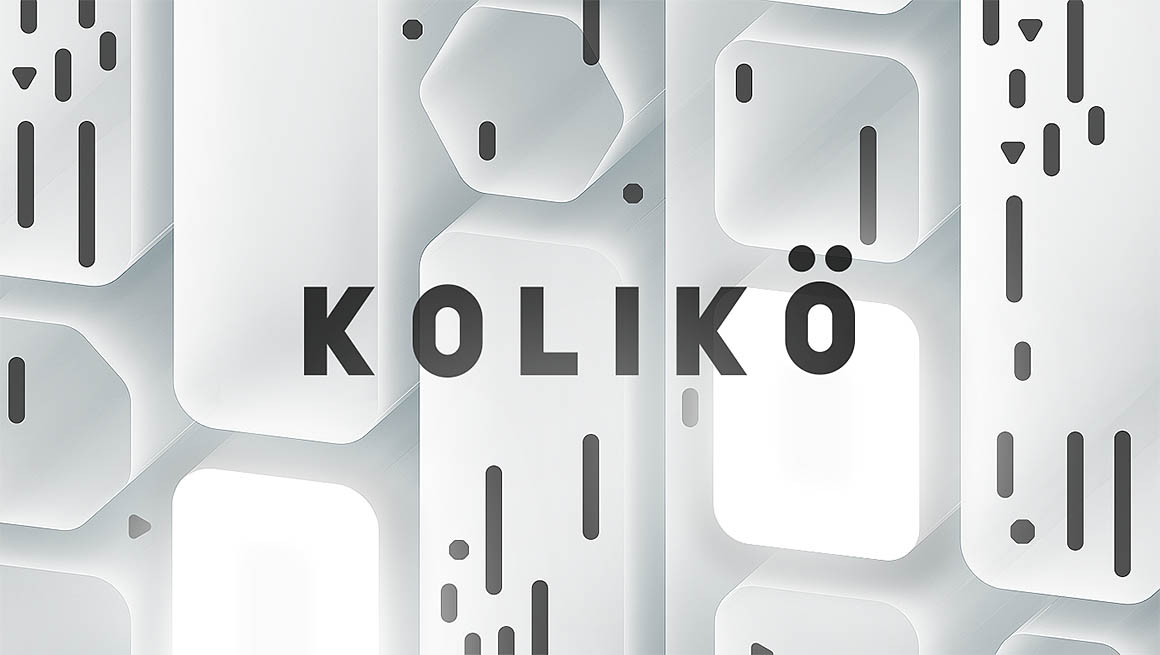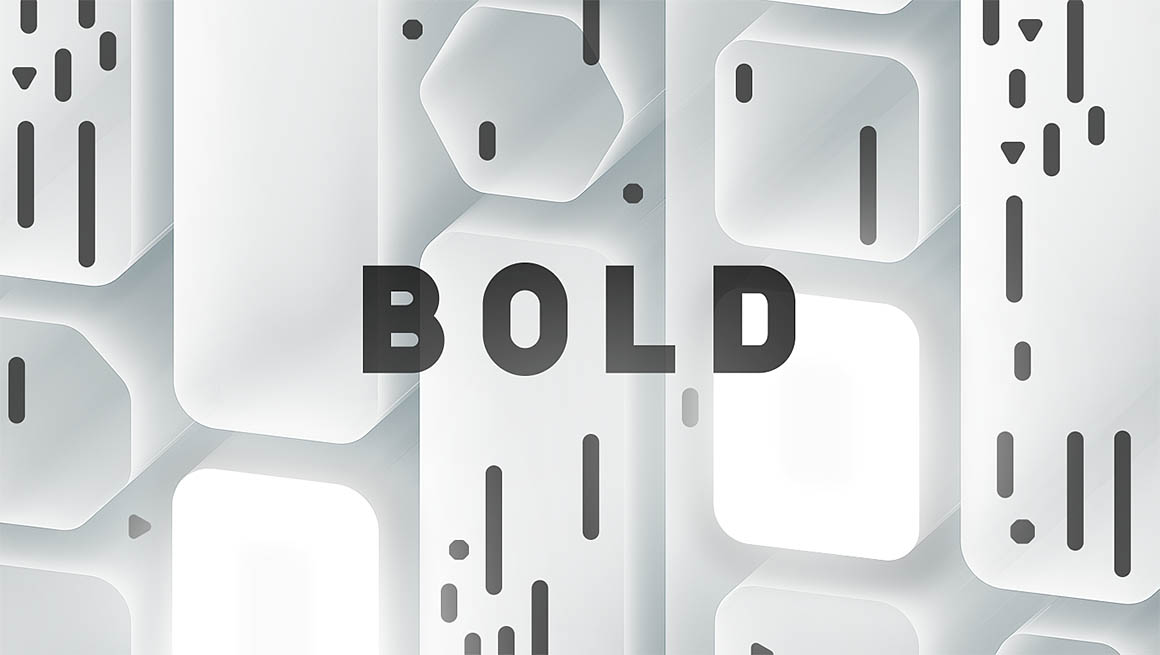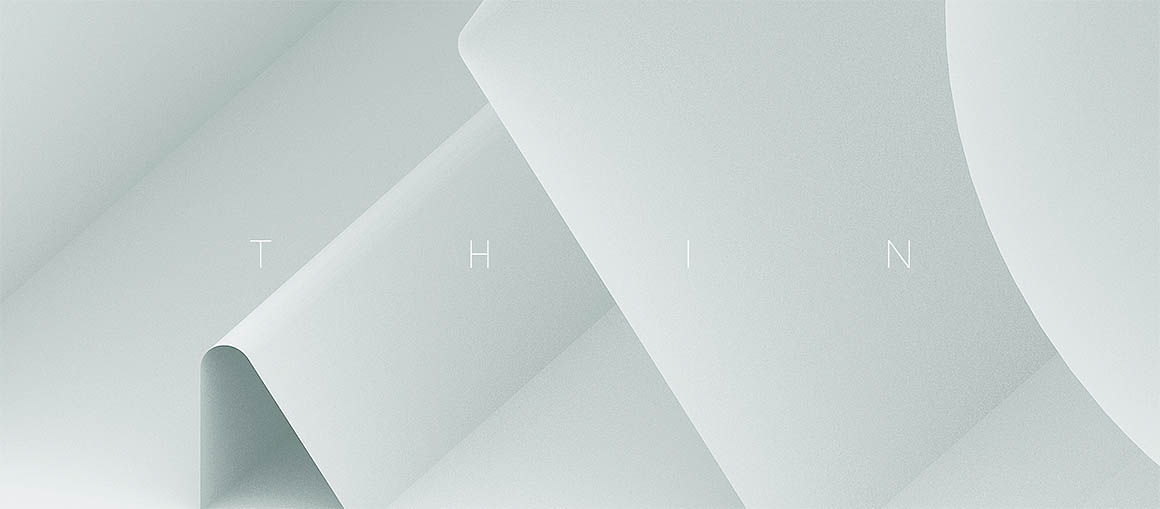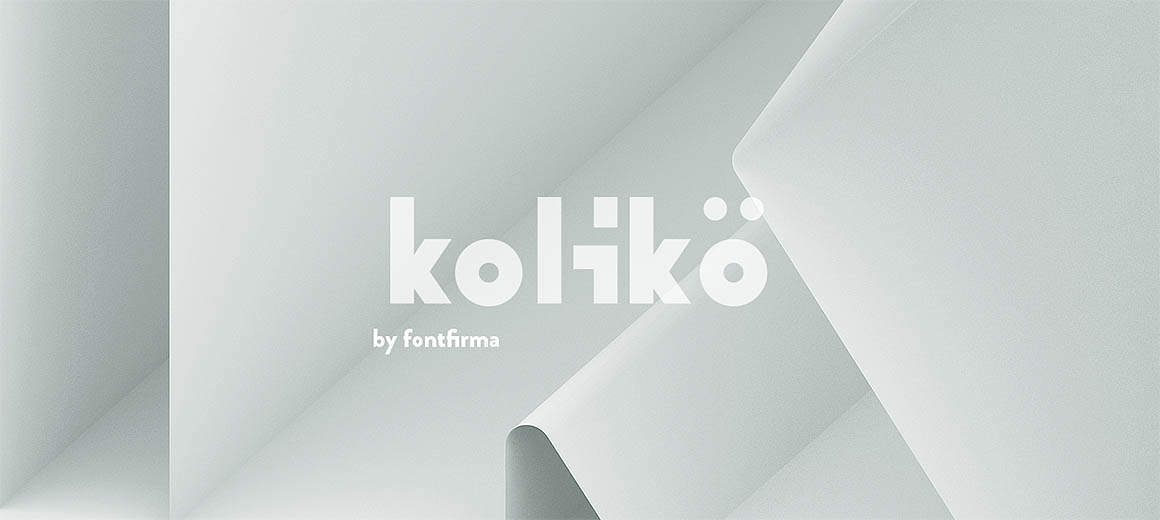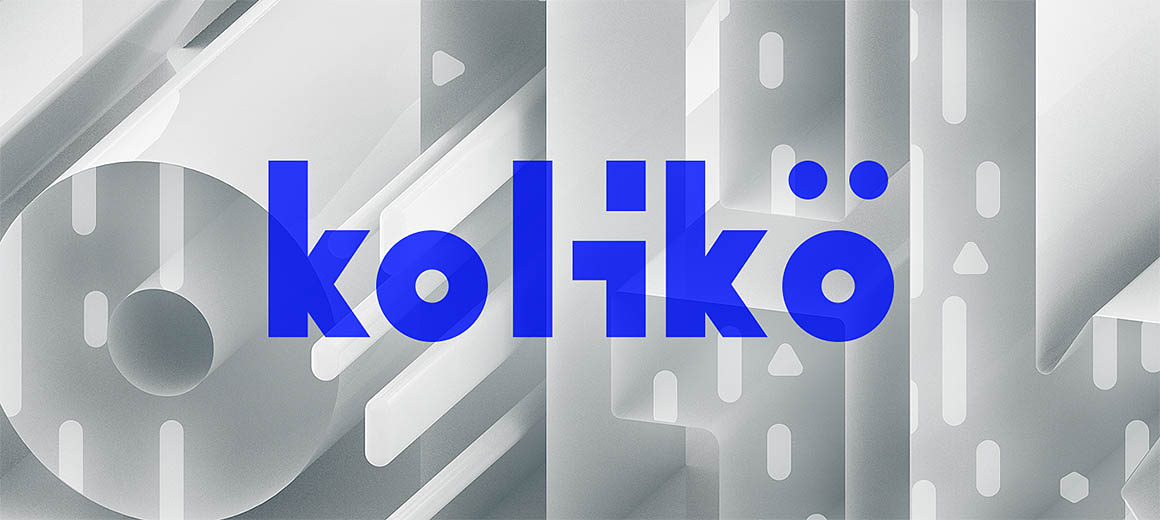
Koliko – Free Font
This clean and modern sans serif font is from Alex Frukta & Vladimir Tomin. Comes with 3 styles: Regular, Bold & Thin. Great for your new creative projects. Download and enjoy 😉